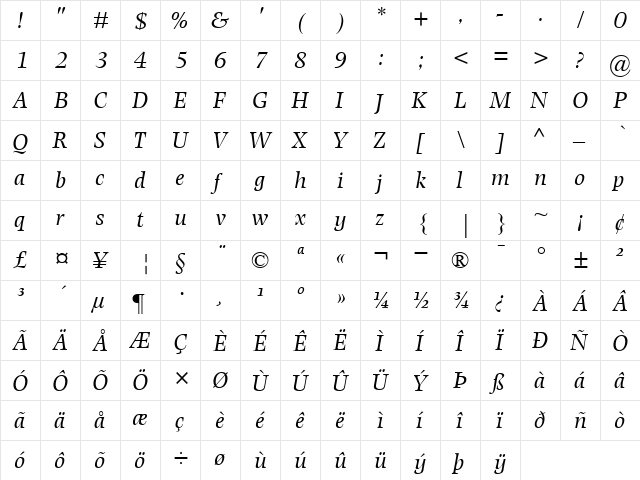
PhotinaMT RomanItalic Font Preview
PhotinaMT RomanItalic
Design Context for PhotinaMT Typeface
PhotinaMT is a composed and adaptable typeface that performs quietly and consistently across a wide range of design contexts. The dynamic lean of this cut emphasises speed and emphasis in any layout.
Pro Tip: Use PhotinaMT for emphasis, pull quotes, and subheadings where its slanted energy can add rhythm to the layout.